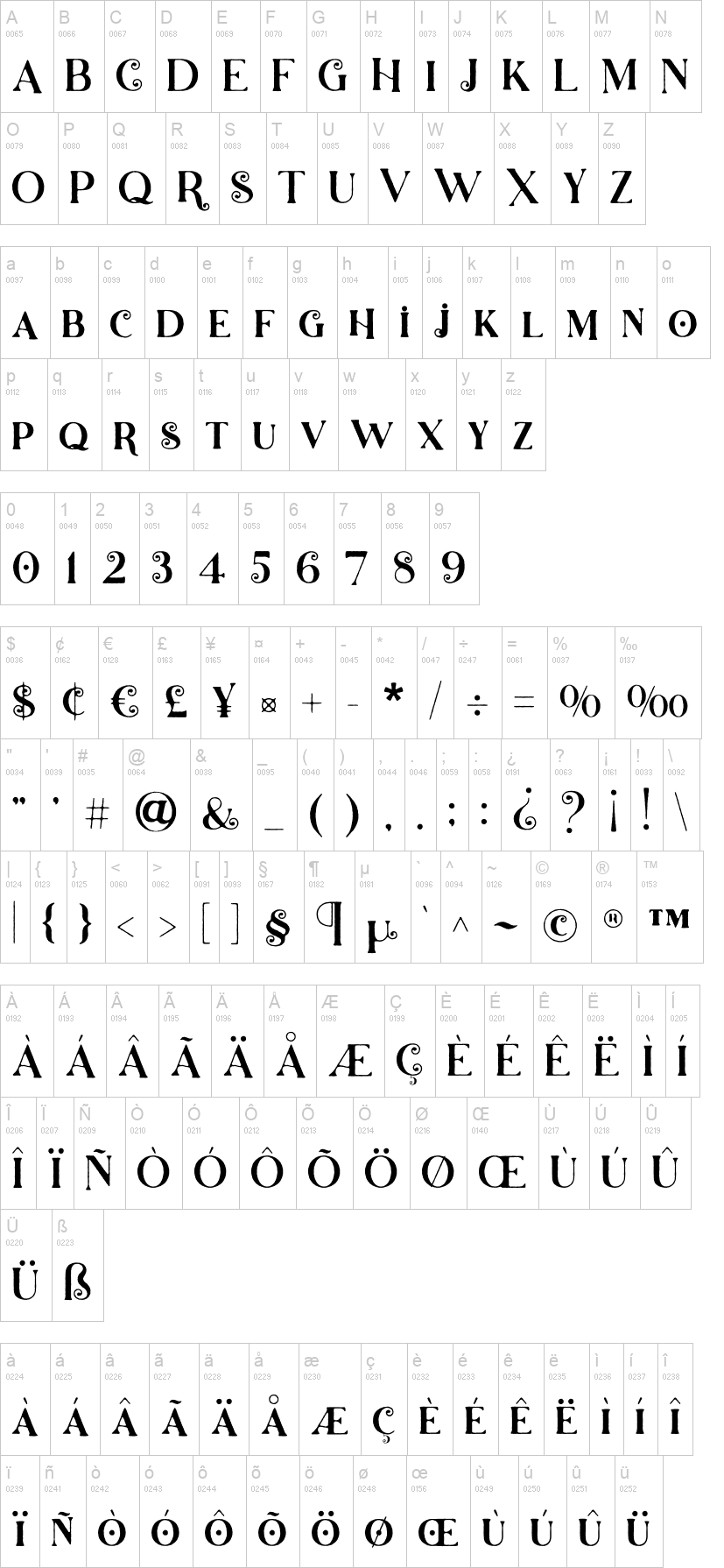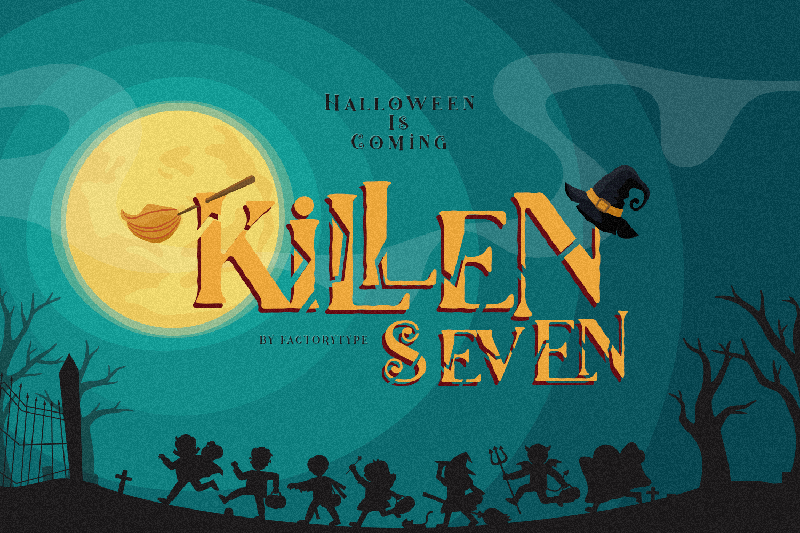
Note of the authorHalloween is almost here, and if youre looking for a font to use for your special Halloween projects, look no further than Killen Seven. Our custom, professional font options are sure to give your work a spooky edge. Plus, you can download them for FREE! Dont miss out on this opportunity to add some awesomely creepy fonts to your collection. Get yours now!